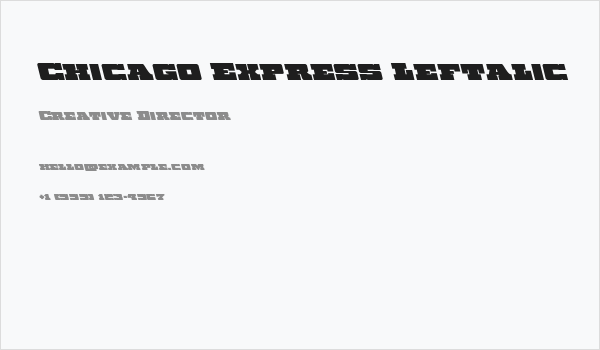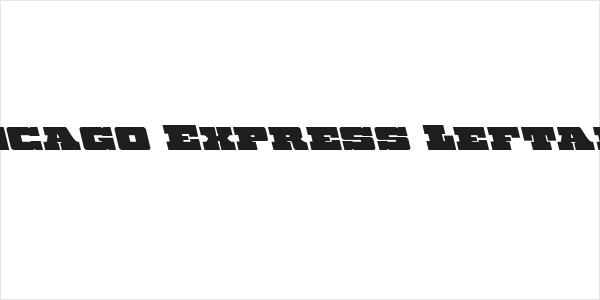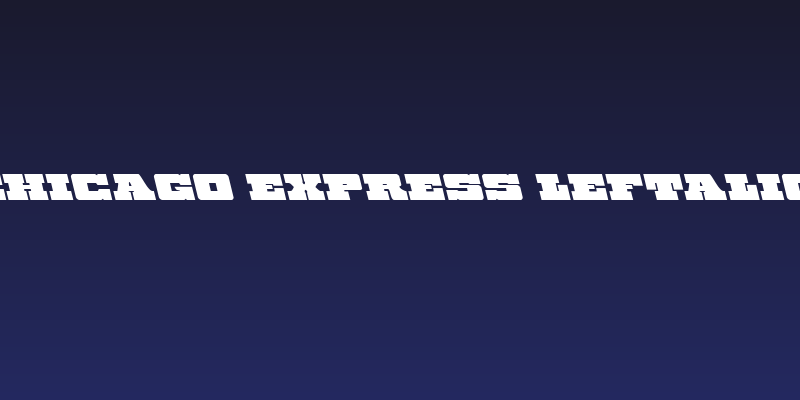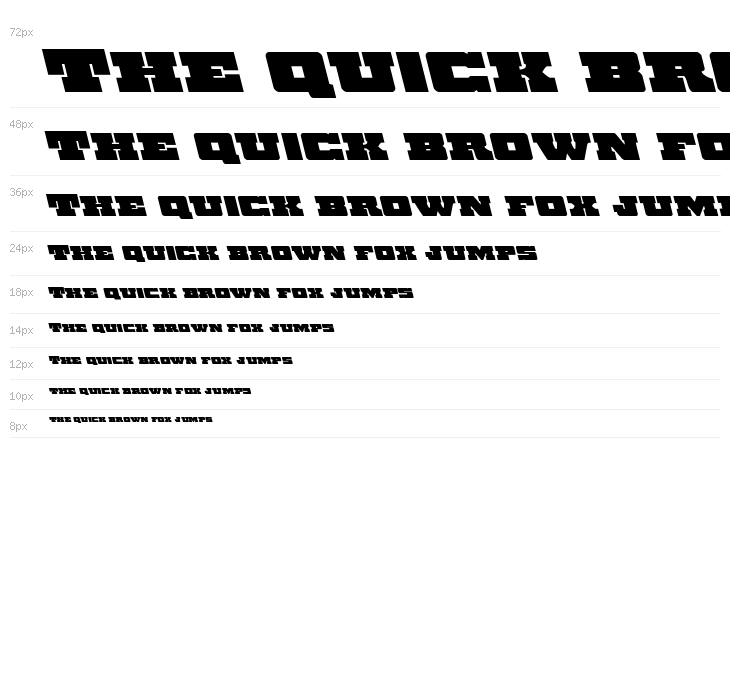
Chicago Express Leftalic Font
Chicago Express Leftalic Description
This font features a bold, dynamic style with a strong presence. The characters are designed with a leftward slant, giving them a sense of movement and speed. The thick, blocky letters have a uniform stroke width, contributing to a robust and impactful appearance. The uppercase and lowercase letters maintain a consistent style, with the lowercase letters slightly smaller in size but equally bold. The numbers and special characters follow the same design principles, ensuring a cohesive look across all characters. This font's design is reminiscent of vintage sports or racing themes, making it ideal for projects that require a bold, energetic typeface.
| Proposed Projects | Ideal for sports branding, racing event posters, dynamic logos, and vintage-themed designs. |